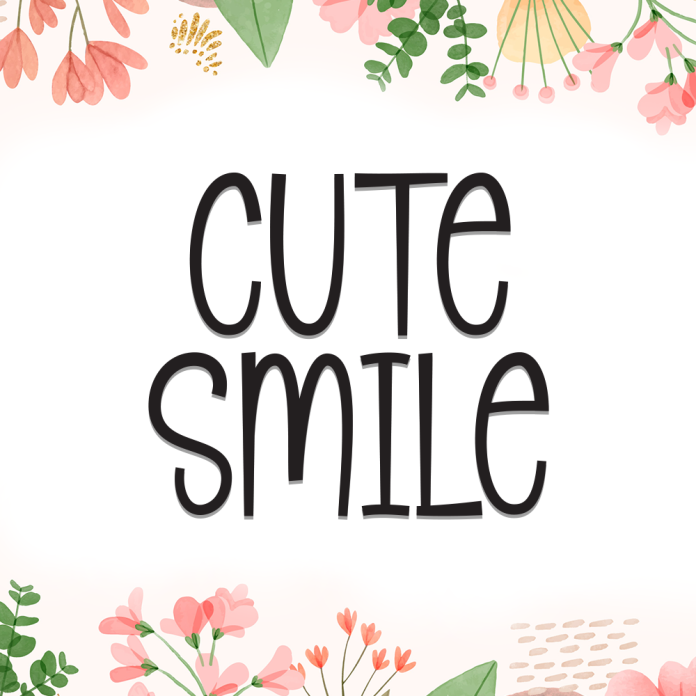
Cute Smile | Script Font
Cute Smile is a cheerful and playful display font that radiates positivity and happiness. Its chunky, rounded characters and bubbly appearance make it perfect for kid-friendly projects, fun branding, and joyful designs.
Ideal for children’s books, product packaging, birthday invitations, stickers, apparel, and any design that needs a bright, cheerful vibe.
Bold and rounded display style
Fun, happy, and youthful energy
Eye-catching for playful themes
Let your designs light up with joy and friendliness using the delightful Cute Smile font.